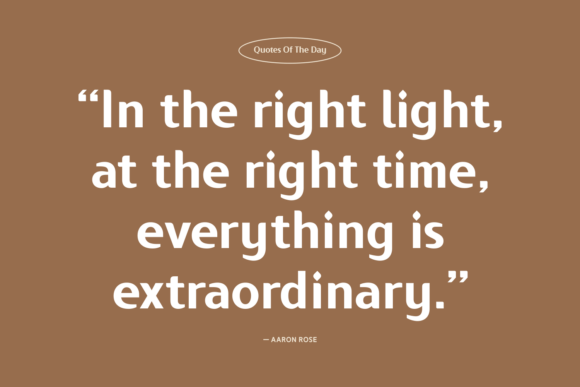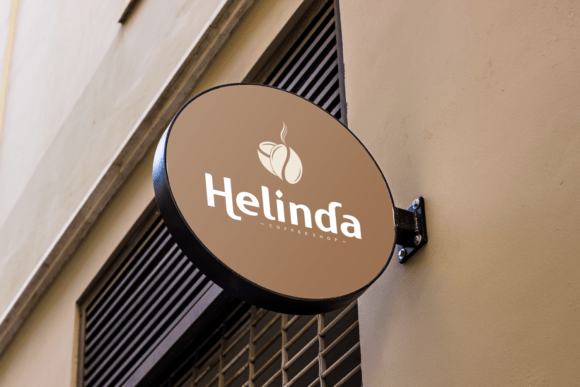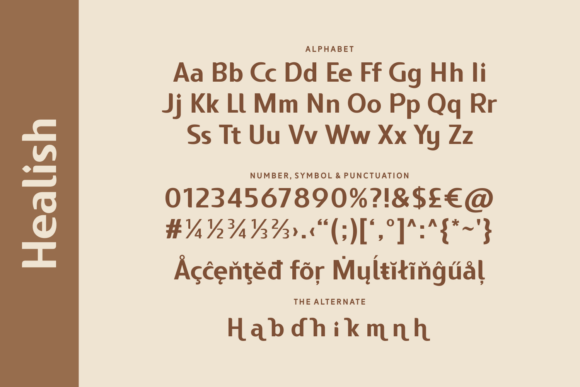
Introducing Healish Font: A Modern Sans Serif for Wellness and Design
As the seasons change and autumn approaches, designers and crafters are on the lookout for fresh inspiration and innovative typography to elevate their projects. Creative Fabrica Fonts is excited to introduce the Healish Font, a modern sans serif typeface that embodies the essence of wellness and healing. In this article, we’ll dive into the world of Healish, exploring its unique features, design inspiration, and the perfect applications for this stunning font.
A Promotional Image that Speaks Volumes
The promotional image for Healish Font is a masterclass in design. Set against a warm, earthy brown background, the typeface is presented in a clean, bold white, exuding a sense of calmness and serenity. A central arch reveals a tranquil and stylish modern interior scene, perfectly complementing the font’s “healing” and wellness-focused name. This thoughtful design immediately conveys the font’s personality and aesthetic, making it an attractive addition to any design project.
The Story Behind Healish Font
Healish Font is a modern sans serif typeface designed with the intention of creating a sense of balance and harmony. Its clean lines, rounded edges, and balanced proportions make it an excellent choice for a wide range of applications, from branding and advertising to packaging and digital media. The font’s design is carefully crafted to evoke a sense of calmness, making it perfect for projects focused on wellness, self-care, and mindfulness.
Key Features of Healish Font
- Modern Sans Serif Design: Healish boasts a fresh and contemporary sans serif design, making it perfect for projects that require a clean and sophisticated look.
- Clean Lines and Rounded Edges: The font’s clean lines and rounded edges create a sense of softness, adding warmth and approachability to any design.
- Balanced Proportions: Healish’s balanced proportions ensure that the font is easy to read, even at smaller sizes, making it ideal for body text and headlines.
- Versatile and Adaptable: This font is designed to be versatile and adaptable, suitable for a wide range of applications, from digital media to print materials.
Perfect Applications for Healish Font
Given its unique design and features, Healish Font is perfect for a variety of projects, including:
- Wellness and Self-Care Branding: Create a calming and soothing brand identity with Healish, perfect for wellness centers, yoga studios, and health food stores.
- Digital Media and Blogs: Use Healish to create engaging and easy-to-read content for blogs, social media, and online publications focused on wellness and lifestyle.
- Packaging and Product Design: Add a touch of modern sophistication to your product packaging with Healish, ideal for food, beverage, and lifestyle products.
- Advertising and Marketing Materials: Create eye-catching ads and marketing materials with Healish, perfect for promoting wellness-related services and products.
Why Choose Healish Font?
With so many fonts available, why choose Healish? Here are a few compelling reasons:
- Unique Design: Healish boasts a distinctive design that sets it apart from other sans serif fonts, making it an excellent choice for designers looking for something fresh.
- Legibility and Readability: The font’s clean lines and balanced proportions ensure excellent legibility and readability, even at smaller sizes.
- Emotional Connection: Healish’s calming and soothing aesthetic creates an instant emotional connection with readers, making it perfect for projects focused on wellness and self-care.
In conclusion, Healish Font is a stunning modern sans serif typeface that embodies the essence of wellness and healing. With its unique design, clean lines, and balanced proportions, it’s perfect for a wide range of applications, from branding and advertising to packaging and digital media. Whether you’re a designer or crafter, Healish Font is an excellent addition to your typography collection. Experience the calmness and serenity of Healish and elevate your design projects to new heights.